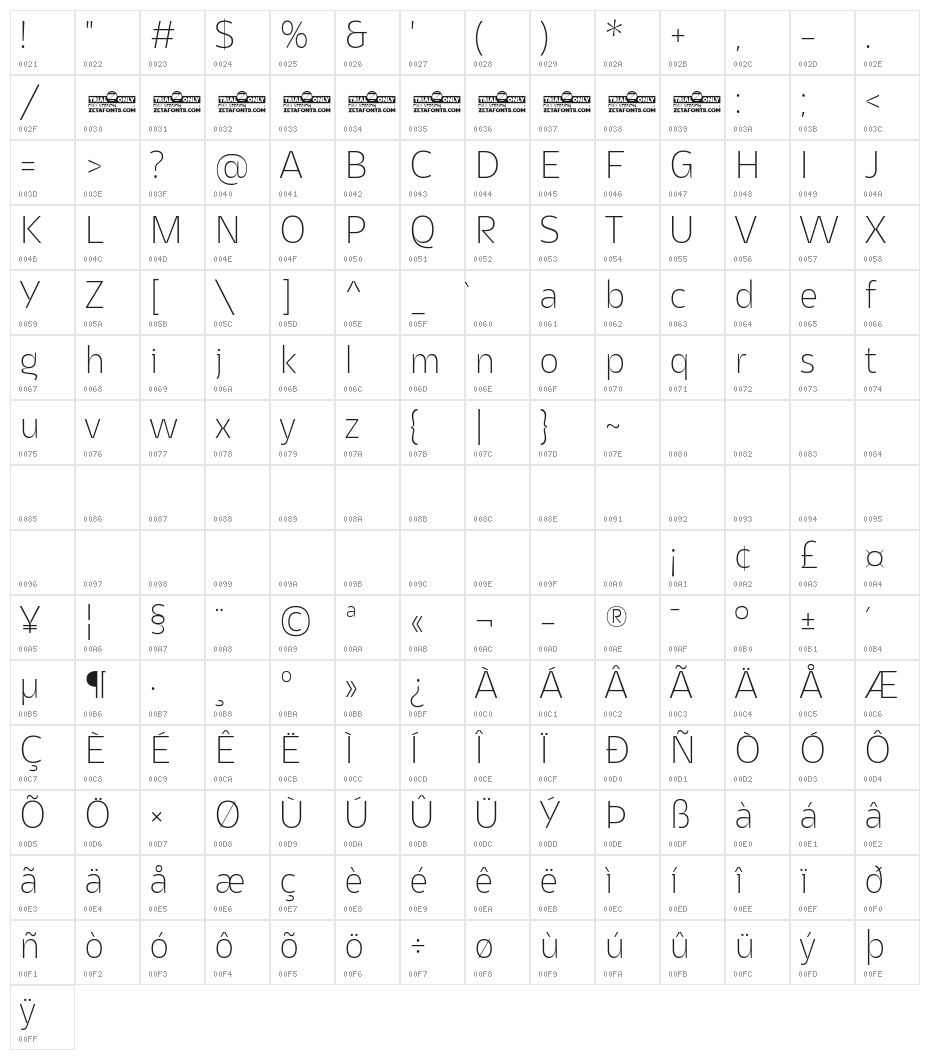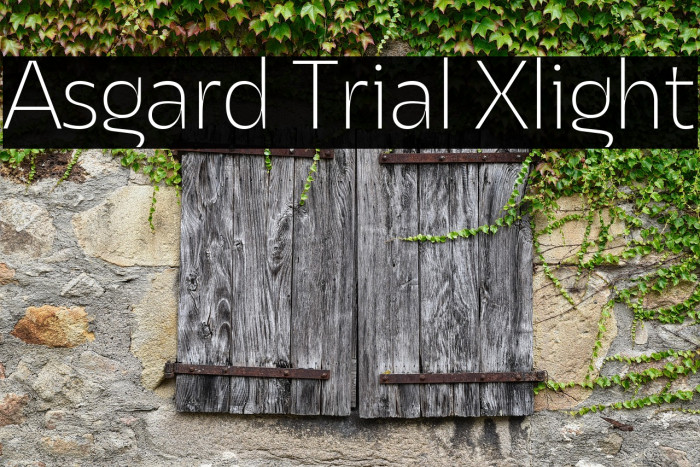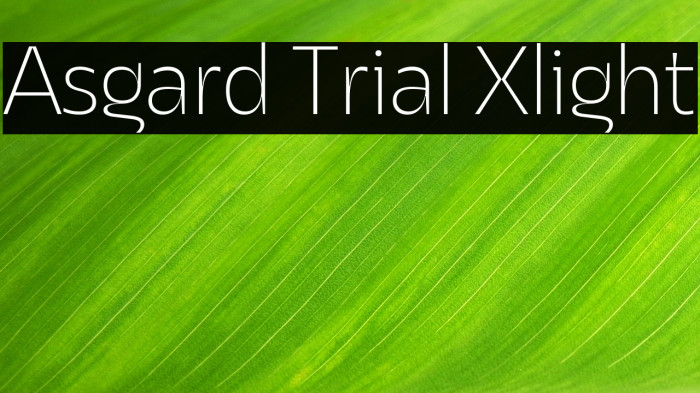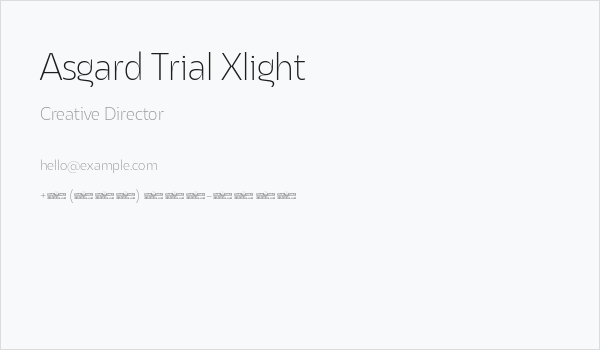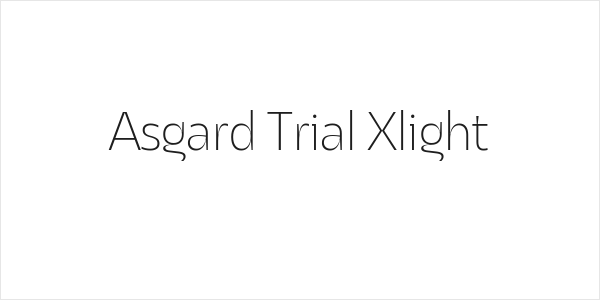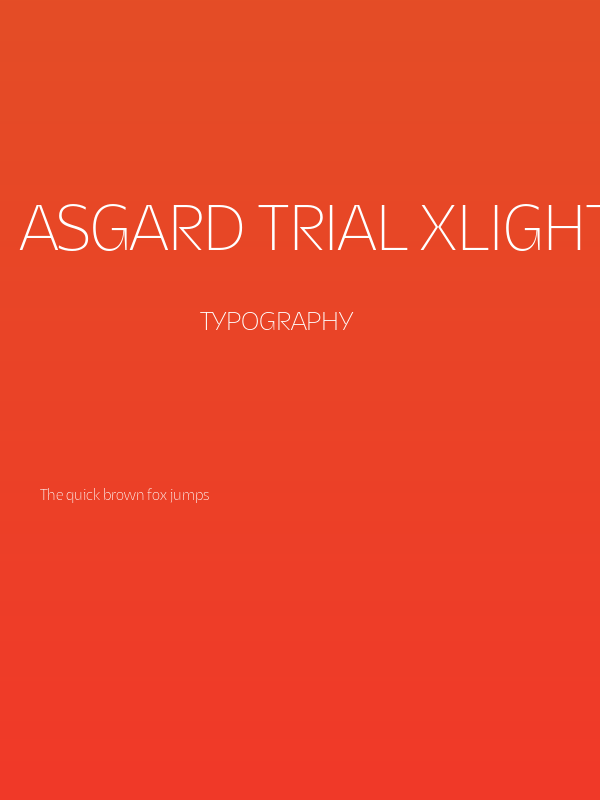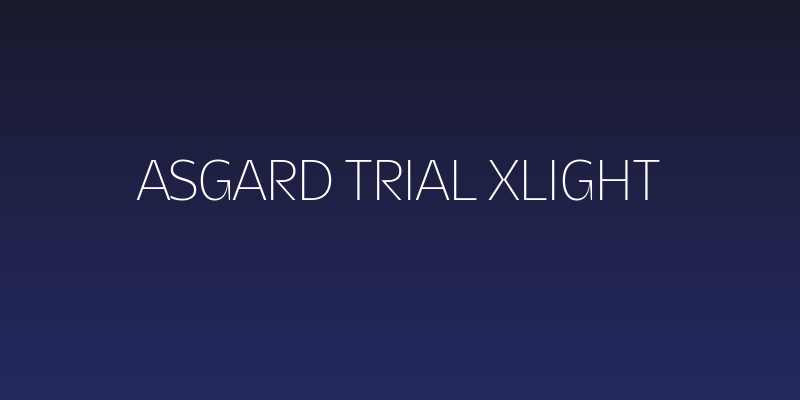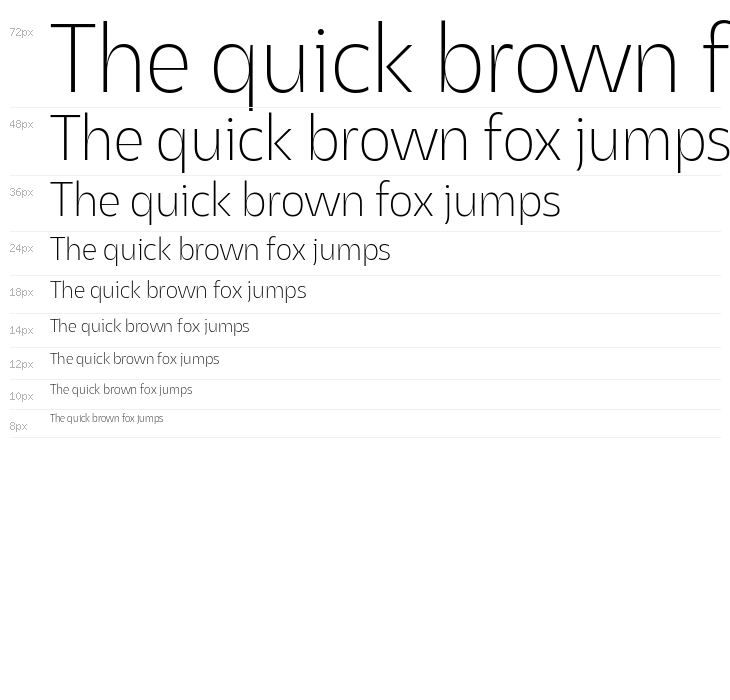
Asgard Trial Xlight Font
Asgard Trial Xlight Description
This font features a sleek and modern design with clean lines and a minimalist aesthetic. The characters are evenly spaced, providing a harmonious and balanced appearance. The uppercase and lowercase letters maintain a consistent style, with a slight geometric influence that adds a contemporary touch. The numerals and special characters are designed to complement the overall look, ensuring versatility across various applications. Its simplicity and elegance make it suitable for a wide range of design projects.